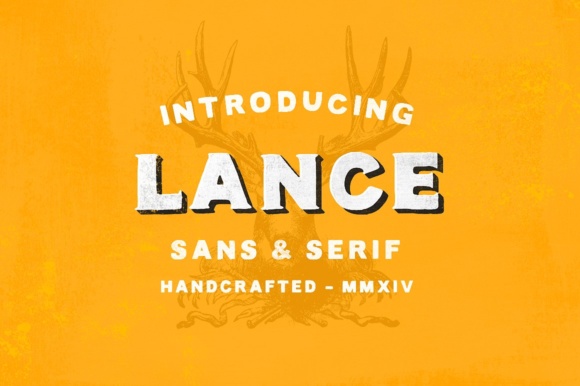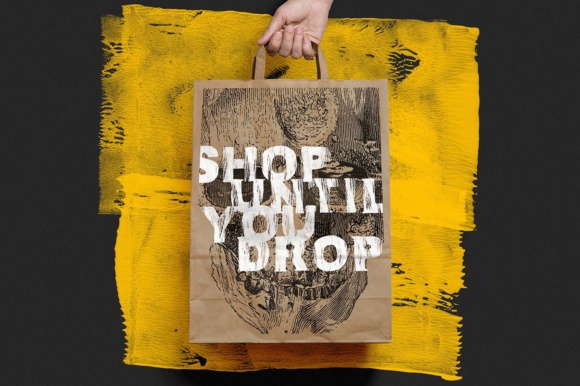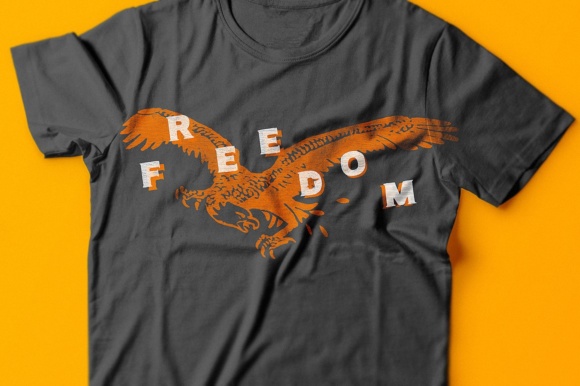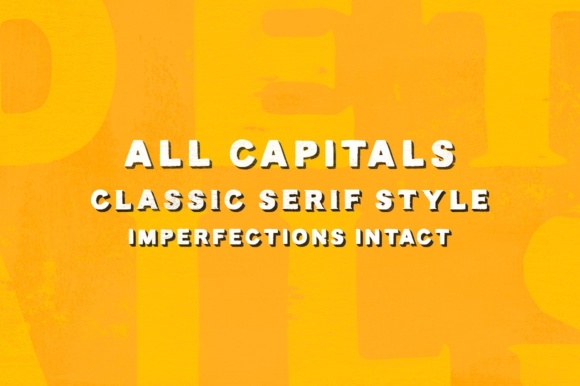
Lance Duo Font
About the Lance Duo Font
Add a touch of class to your work with the Lance Duo Font, a truly exceptional typeface. Lance is an all capitals font duo that works together in harmony. Inspired by bold, classic typography and ideal for a whole range of creative projects. The fonts were purposefully designed to look great both front and center, and also as a complementary font to others.
The Lance pair are entirely handcrafted with all imperfections intact; enhancing the authentic handmade feel that has always been so desirable.
Lance Duo’s bold, classic styling makes it ideal for headlines, logos, and short impactful text on posters or packaging. Its handcrafted feel adds authenticity to branding projects requiring a vintage or premium aesthetic. However, the all-caps nature and relatively high x-height make it less suitable for body text or lengthy paragraphs, or UI elements requiring high readability.
To complement its strong personality, consider pairing Lance Duo with a clean sans-serif like Montserrat for a modern contrast, or a delicate script font such as Great Vibes for a touch of elegance. For a more traditional feel, a classic serif like Garamond could provide a sophisticated balance.
Lance Duo projects a confident, authoritative personality, well-suited for brands emphasizing heritage, quality, or a premium feel. Avoid using it for projects needing a friendly or playful tone.
Lance Duo Font Usage Examples
Lance Duo Font Example